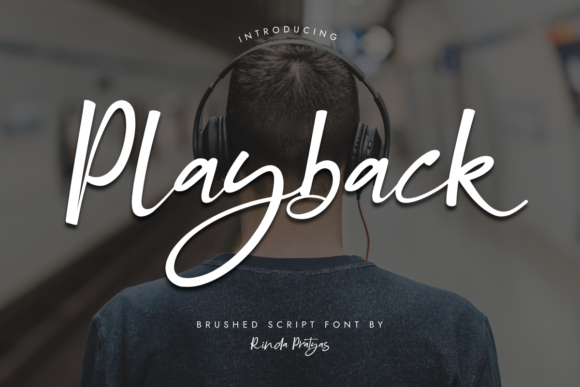
In a digital world saturated with visual noise, your words deserve a stage that matches their power. Presenting Playback Font, a script typeface born from the fusion of classic elegance and contemporary flair. Its rich curves and bold strokes create a visual symphony that captivates and enchants.
With Playback Font, transform your digital creations into captivating masterpieces. Its meticulously crafted characters exude a charm that draws readers in, leaving them spellbound by the sheer beauty of your words. Whether you're crafting social media posts that demand attention, designing logos that stand out, or creating websites that leave a lasting impression, Playback Font is your trusted ally.
Unleash your creativity and let your words dance across the screen, guided by the graceful lines of Playback Font. Its effortless flow and elegant curves add a touch of sophistication to any project, effortlessly elevating your designs to new heights. Join the ranks of those who dare to be different, who embrace the power of typography, and watch as your words take on a life of their own.